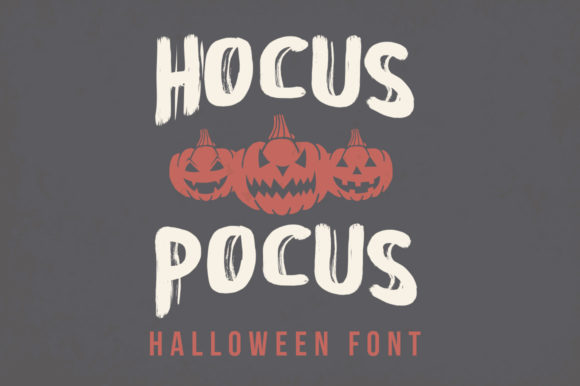
**Hocus Focus Font: Conjure Enchanting Designs with a Spooktacular Charm**
Prepare to cast a typographic spell with Hocus Focus, a hauntingly captivating display font that's sure to cast a bewitching charm upon your next design project. Its eerie and enigmatic essence makes it a perfect companion for Halloween-themed creations, but its boundless versatility extends far beyond the realm of All Hallow's Eve.
Crafted with meticulous care by the wizards of Jupiter Studio, Hocus Focus empowers you to conjure an array of enchanting visuals that will leave an unforgettable impression. Its meticulously designed characters dance before your eyes, captivating your audience with their playful spirit and whimsical allure.
**Unleash Your Imagination with Hocus Focus**
Whether you seek to conjure eye-catching posters, add a touch of spooktacular to your website, or summon unique invitations that will send shivers down your recipients' spines, Hocus Focus is your visionary ally. Its ethereal elegance lends an air of enchantment to any project, making it the perfect choice for designers seeking a font that evokes the mysterious whisper of autumn winds and the haunting glow of jack-o'-lanterns.
**Embrace the Magic of Hocus Focus**
With Hocus Focus, you hold the power to weave typographic enchantment into your creations. Discover the captivating allure of this font and allow your imagination to run wild as you design projects that will inspire, enchant, and haunt your audience.
**Features that Cast a Spell:**
- A captivating display font with a unique and playful personality
- Perfectly suited for Halloween-themed designs and beyond
- Handcrafted with meticulous care by the skilled designers of Jupiter Studio
- Unleash your creativity and conjure unforgettable designs